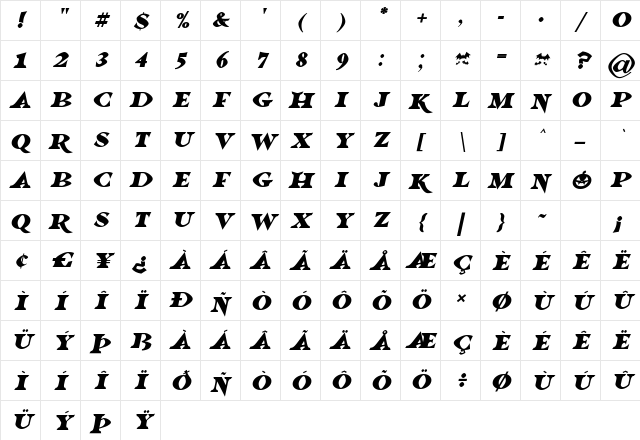
Halloween Horrors 2023 carries an unsettling edge - its distorted letterforms are built to unsettle, perfectly suited to horror, Halloween, and dark creative work. The slanted form adds forward momentum and visual energy.
Font Pairing: Pair with a clean neutral sans-serif for body copy to let Halloween Horrors 2023's character lead without overwhelming the composition.
Pro Tip: Use Halloween Horrors 2023 at larger display sizes for maximum impact. Consider generous tracking to let the disturbing character of each letterform breathe.